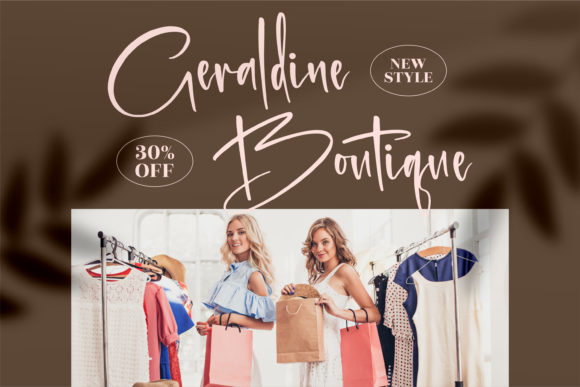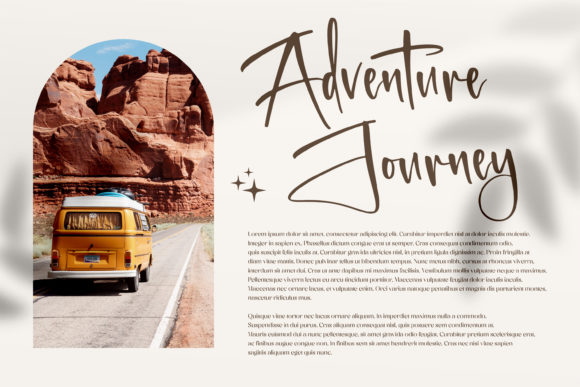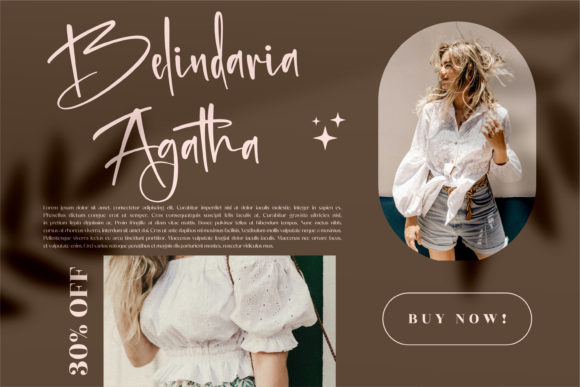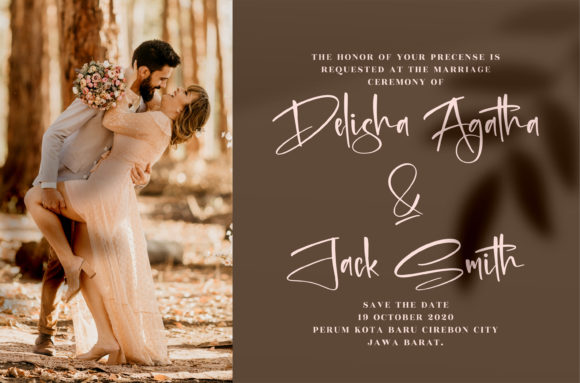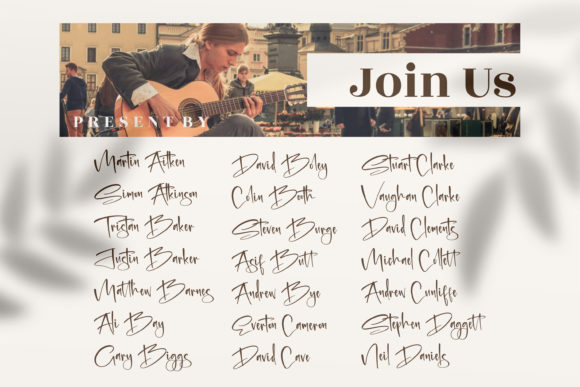
Freestyle Lettering Font
Freestyle Lettering is a thin and beautiful handwritten font. Its distinct and well rounded letters make this font a masterpiece. Fall in love with its sweet style and use it to create spectacular designs!